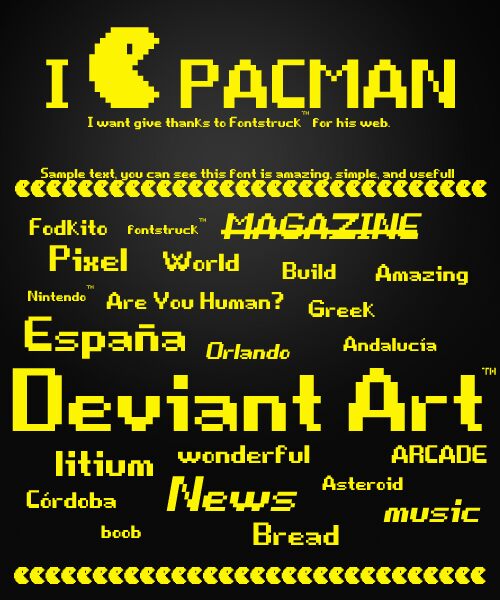
Game Over, designed by Fodkito, is a free pixel display font with the blunt, stepped construction of early arcade lettering. Its squared strokes shift between solid blocks and clipped corners, giving the letters a compact, mechanical silhouette.
The arcade-game reference makes it a convincing choice for retro game menus and tournament posters. It feels built for a screen. Beyond games, the same block-built forms can shape music merchandise, youth-event graphics, and technology packaging with a deliberately low-resolution look that recalls old screen graphics.